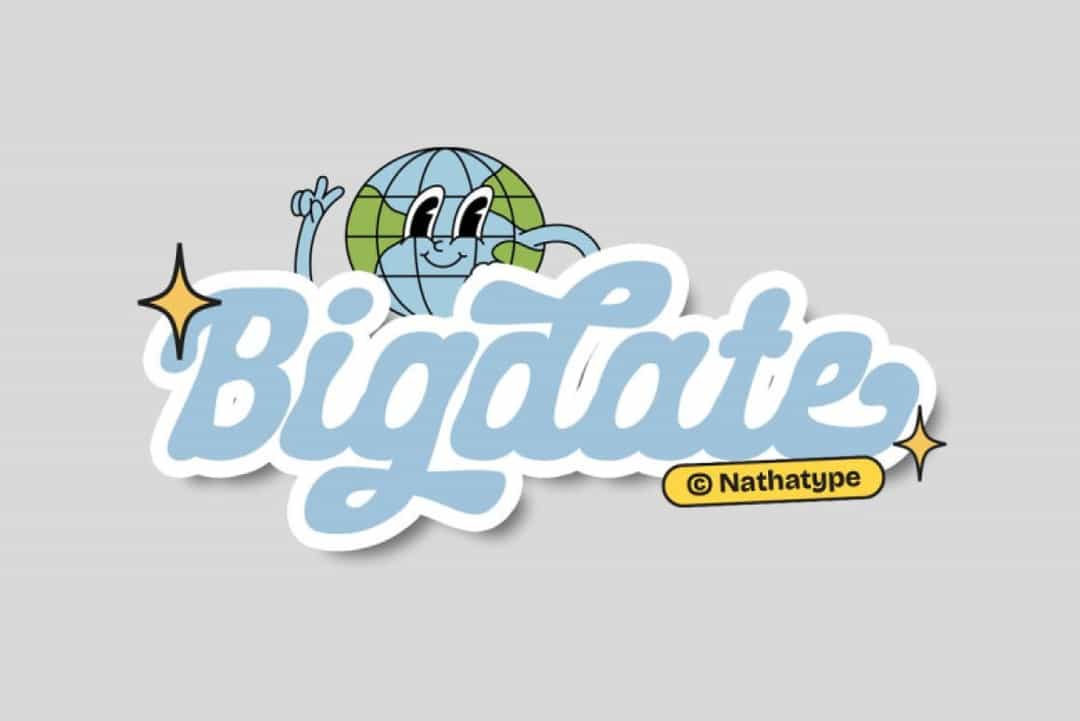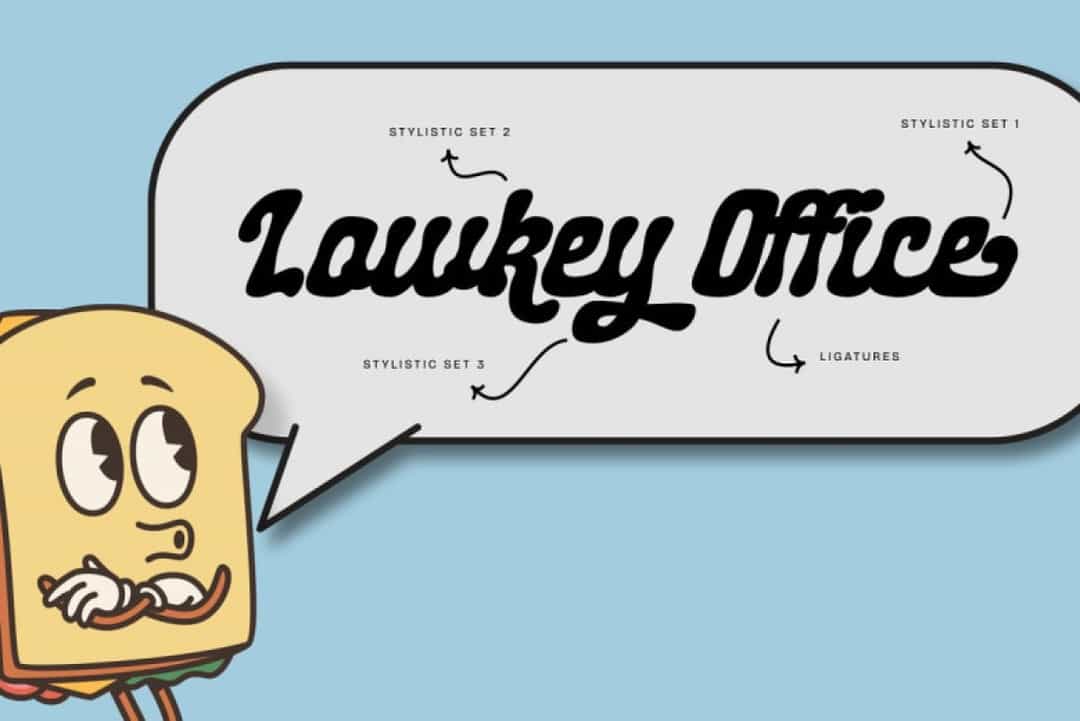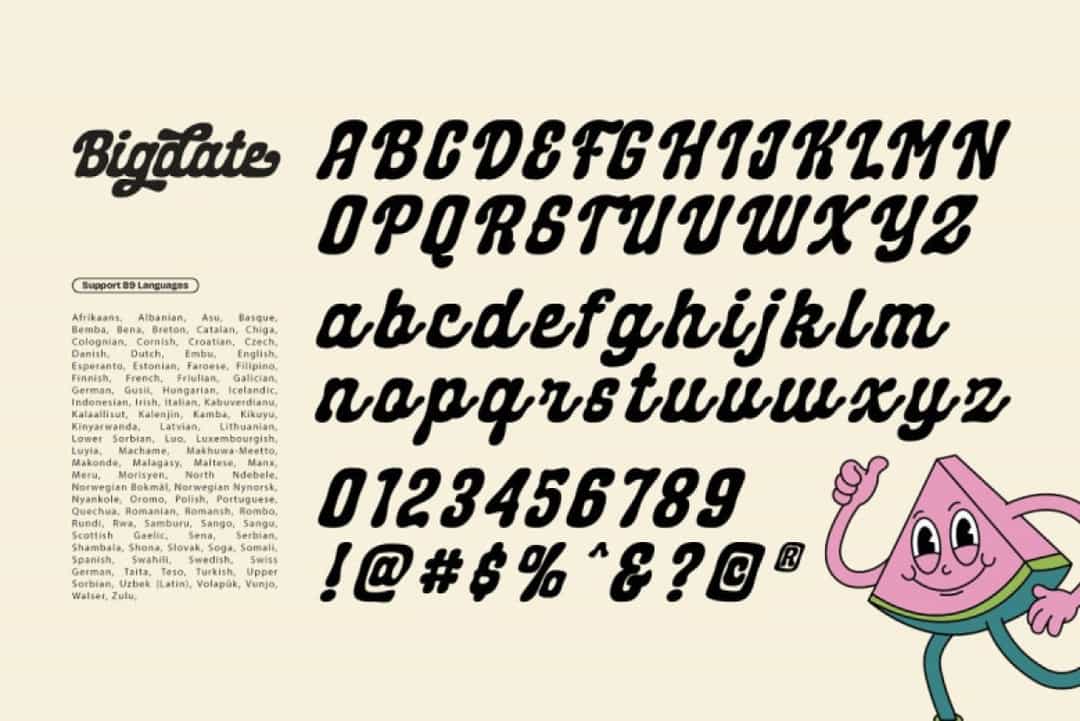
Bigdate is an elegant retro display font featuring connecting letters, heavy weight and low contrast. This font adds elegance and fluidity to your projects; its seamless flow of characters creates a pleasing composition; each letter interconnects effortlessly with one another for a unified and sophisticated appearance.